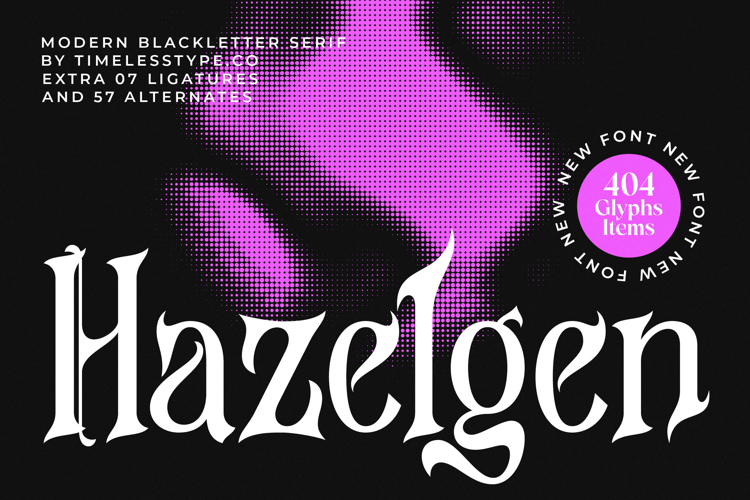
Hazelgen - Modern Blackletter Serif
Elevate your designs with the unmistakable allure of Font Hazelgen - Modern Blackletter Serif Blackletter, a truly captivating typeface that brilliantly fuses historical elegance with contemporary edge. Its powerful presence is defined by high-contrast letterforms and distinctive serifs, offering an immediate visual impact that commands attention. This font embodies a sophisticated gothic aesthetic, perfectly tailored for projects demanding both tradition and modern flair.
Unleash unparalleled creative potential with Font Hazelgen - Modern Blackletter Serif Blackletter's robust feature set, including an impressive array of 07 ligatures and 57 alternates. These extensive options provide designers with unrivaled flexibility to craft unique, custom lettering for any context. With its extensive multilingual support, Font Hazelgen - Modern Blackletter Serif Blackletter adapts seamlessly across global markets, making it incredibly versatile for international projects.
Font Hazelgen - Modern Blackletter Serif Blackletter is impeccably suited for luxury branding, high-end packaging, and prestigious editorial design. It excels in crafting expressive headlines, striking logos, and memorable mastheads, infusing every application with a sense of heritage and sophistication. This typeface is the ideal choice for projects aiming to convey exclusivity and a powerful, timeless statement.
Invest in a typeface that truly sets your work apart. Font Hazelgen - Modern Blackletter Serif Blackletter is more than just a font; it's a design statement that promises to enhance your creative output with its bold characteristics and refined grace. Discover the ultimate tool for achieving an impactful and memorable aesthetic across all your professional ventures.